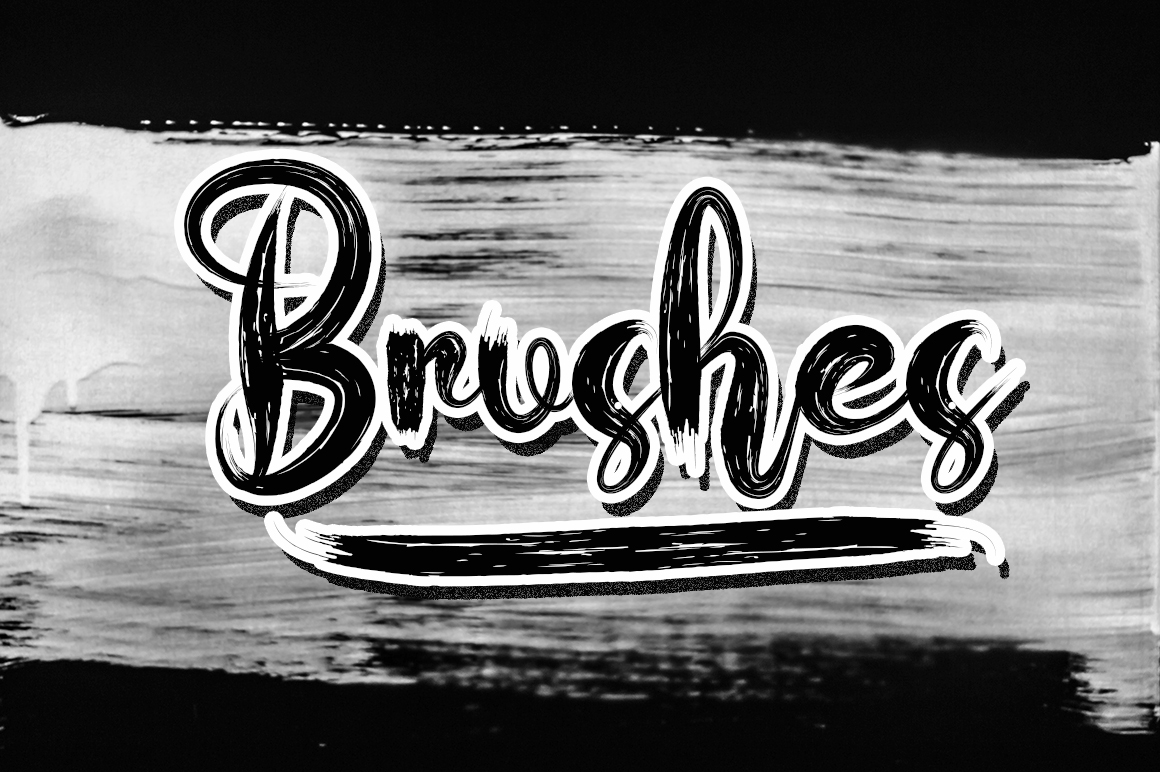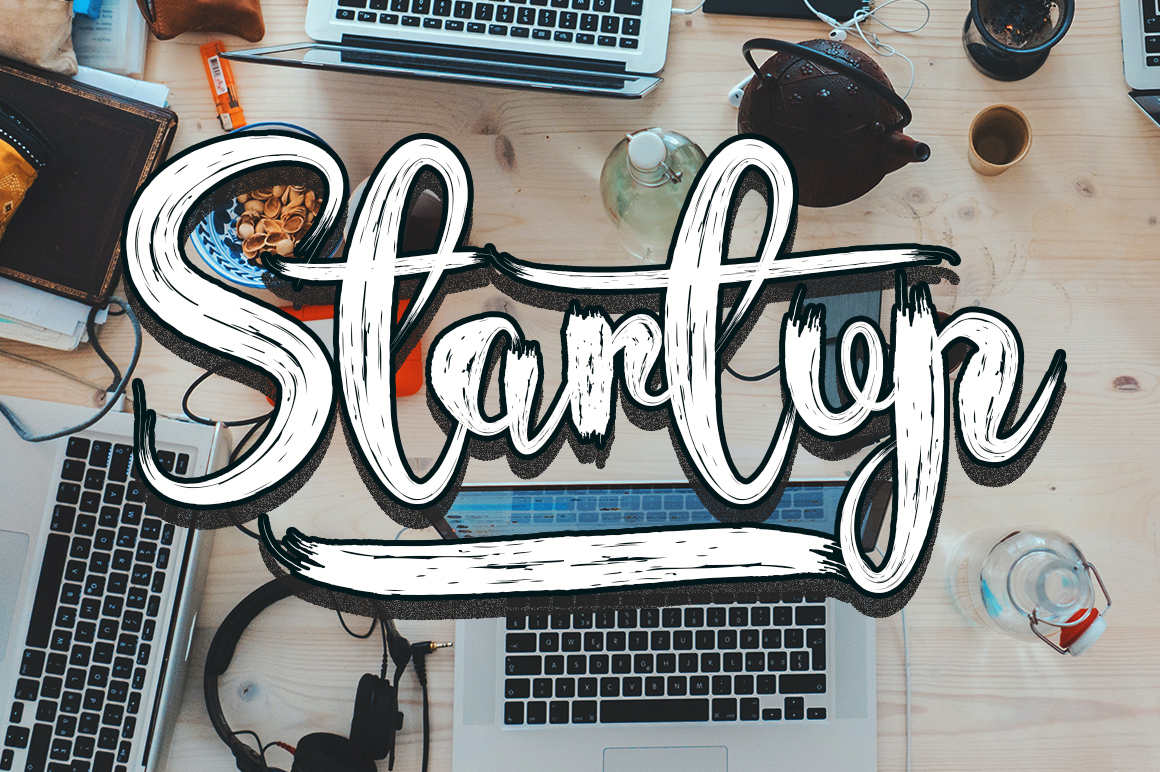
Coffee Brush Font
This is a lovely brushed handwritten font. It has a casual and trendy touch, which will make each of your creations both adaptable and unique.